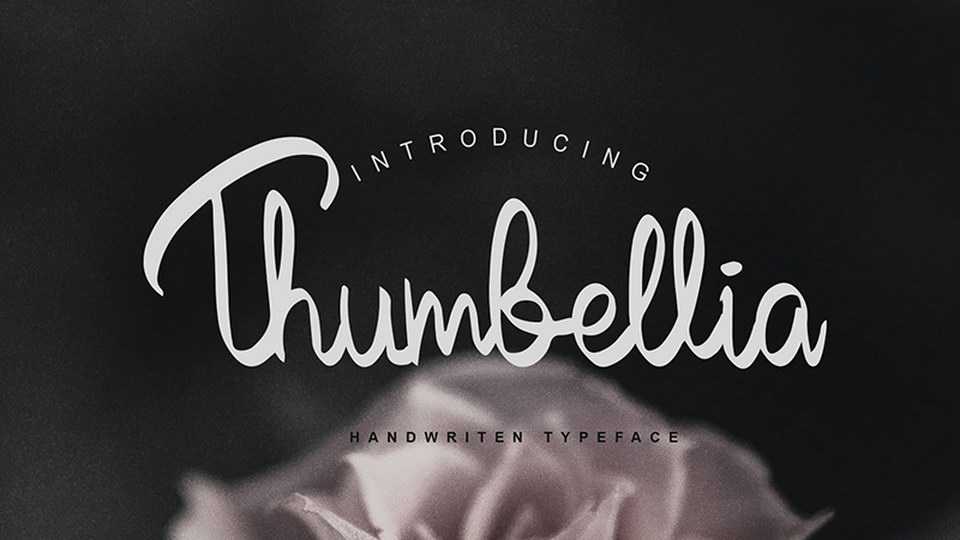
Download Thumbellia font, a beautiful handwritten script. Thumbellia font can be used for various purposes, such as headings, cards, badges, event, wedding, quote, ads, posters, badges, etc.
Designer: Under21